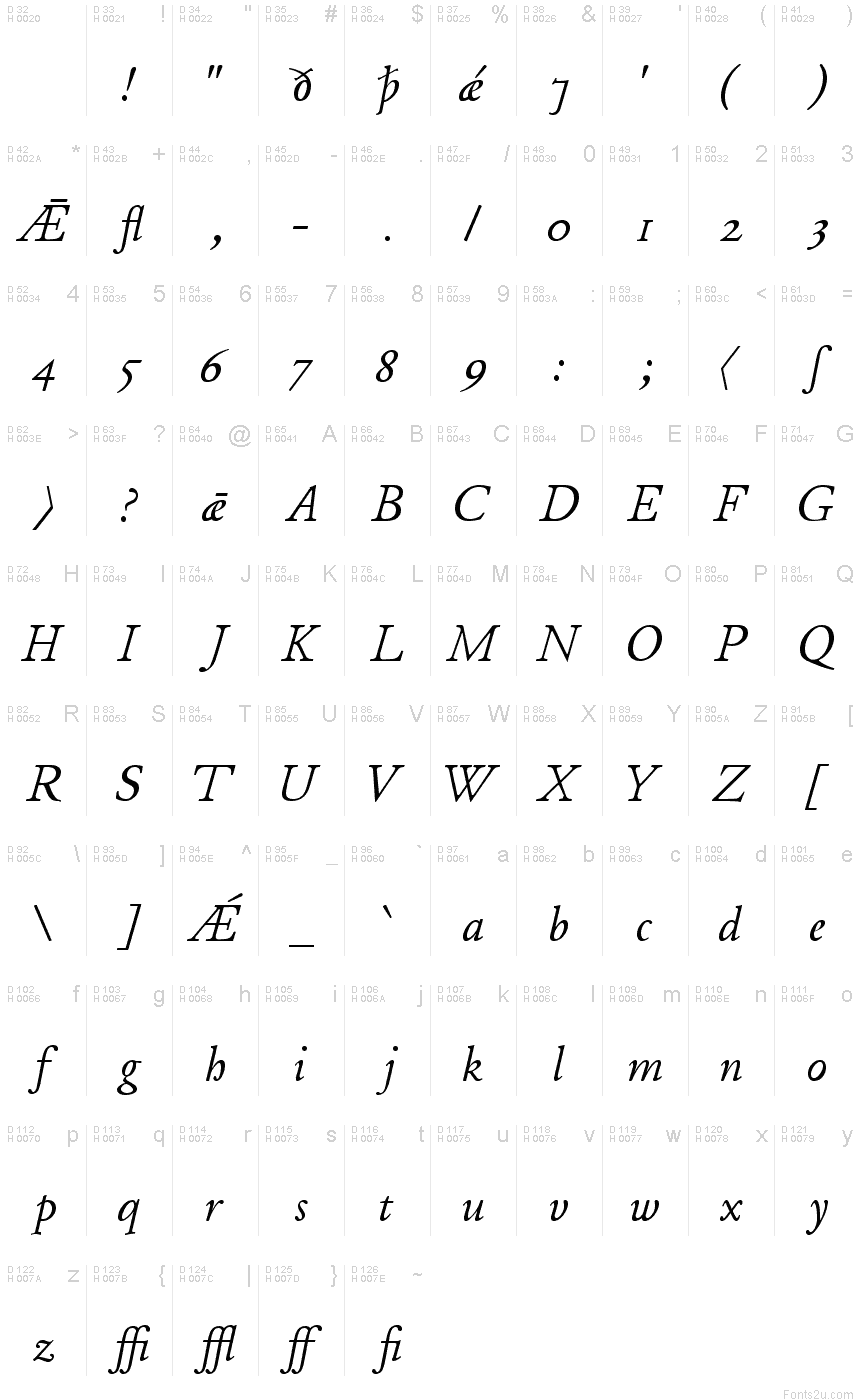
JuniusModern Italic
Junius Modern Italic, designed by Peter S. Baker, is a free calligraphic italic serif with the poise of formal pen lettering. Long, sweeping curves give the letters a graceful forward motion. The stroke widths change dramatically throughout.
A literary press or heritage-minded brand could use it for an elegant identity rooted in manuscript tradition rather than rigid typesetting. Its refined sweep also suits poetry collections, classical music programs, and formal invitations, where the lettering can echo historic engraved ornament or a practiced hand.